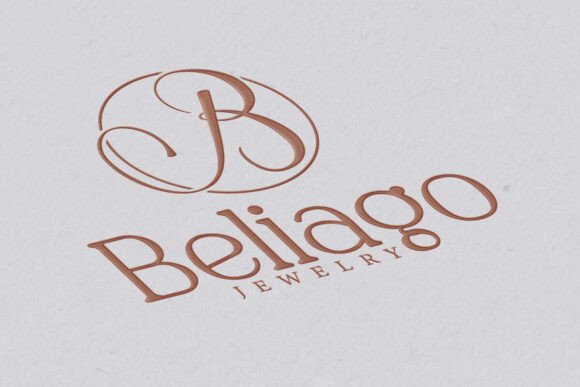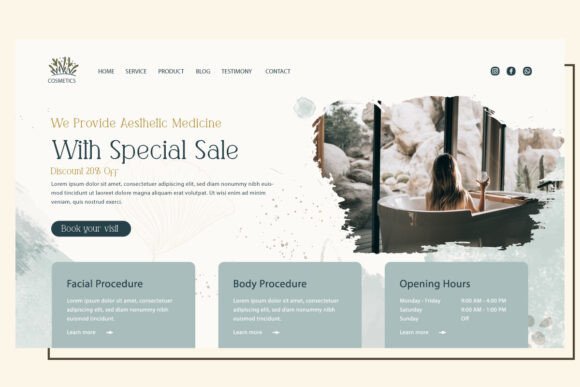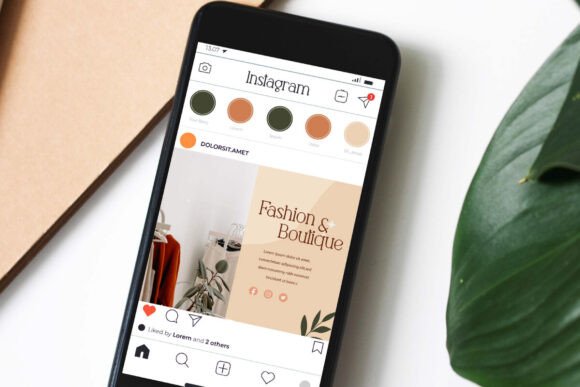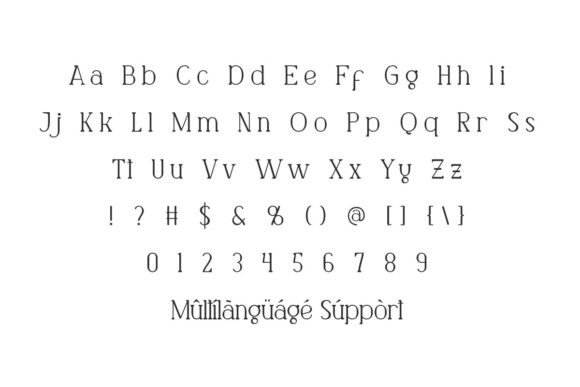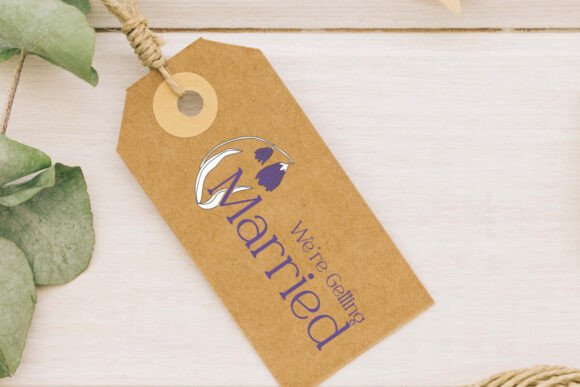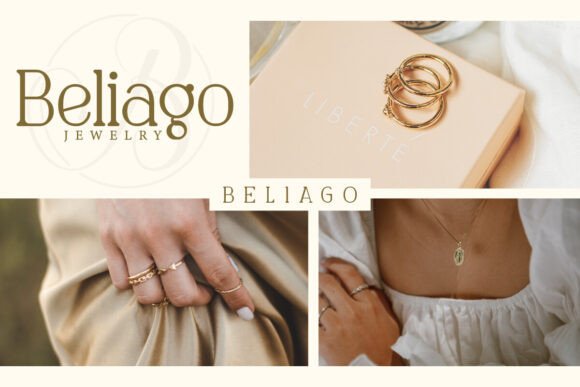
Discover the Timeless Charm of Beliago Font
As a designer, have you ever been captivated by the nostalgic charm of classic serif fonts? The moment you lay eyes on a beautifully crafted typographic piece, you know exactly what we’re talking about. It’s the perfect blend of tradition and modernity that leaves a lasting impression on your audience. This is exactly what the Beliago Font brings to the table – a retro-inspired classic serif font with a modern twist and an artistic touch.
The Beliago Font is designed to elevate your brand’s visual appeal, making it perfect for various industries such as architecture, beauty, fashion, and more. Its versatility and sophistication will undoubtedly increase your business’s attractiveness and leave a lasting impression on your target audience. Whether you’re a seasoned designer or just starting out, the Beliago Font is an invaluable asset to your creative toolkit.
- Unique Characteristics: Beliago Font features a unique blend of modern and vintage elements, with a distinctive flair and elegance.
Overall, I think the Beliago Font is a nice addition to the world of fonts. It’s a great choice for designers who want to add a touch of elegance and sophistication to their work. ✨
- Unique and elegant design: The Beliago Font has a beautiful, flowing design that’s perfect for headings and titles.
- Wide range of weights: The font comes in a variety of weights, from light to bold, making it easy to find the perfect fit for your design.
- High-quality rendering: The font renders beautifully at all sizes, making it perfect for print and digital use.
- Limited language support: The Beliago Font only supports a limited number of languages, which may be a problem for designers who need to work with languages that aren’t supported.
- Not ideal for body text: While the font is great for headings and titles, it may not be the best choice for body text due to its high x-height and narrow letterforms.
Overall, I’d give the Beliago Font 4 out of 5 stars. It’s a beautiful and elegant font that’s perfect for designers who want to add a touch of sophistication to their work. However, its limitations may make it less suitable for certain projects.
- Use the font in conjunction with other elegant and modern fonts for a sophisticated look.
- Use the font for headings and titles to create a clear hierarchy of text.
The Beliago font is commonly used in:
- Magazine and newspaper